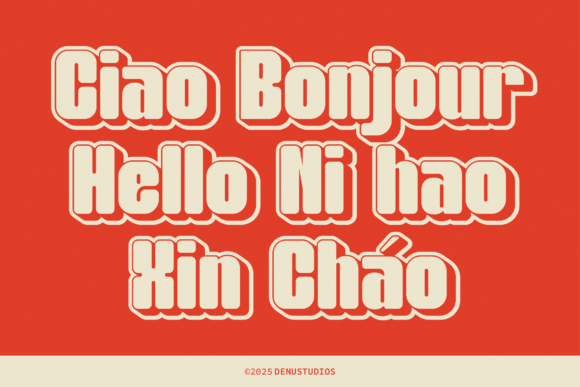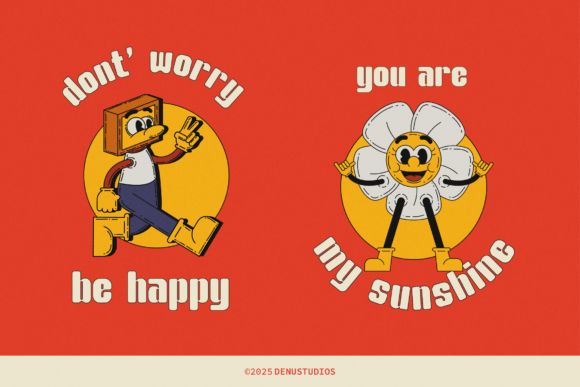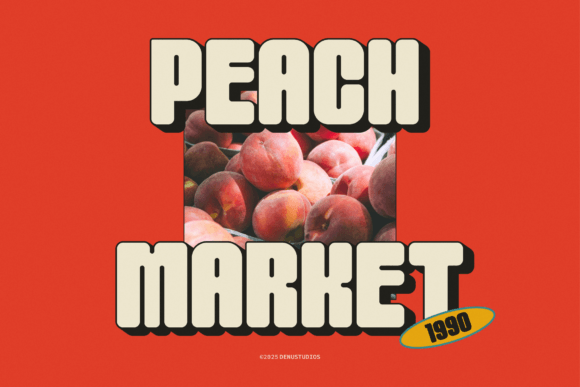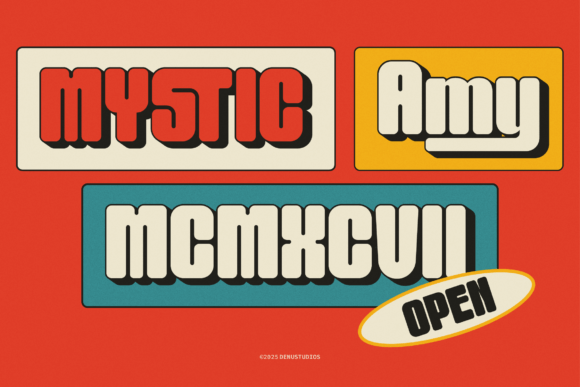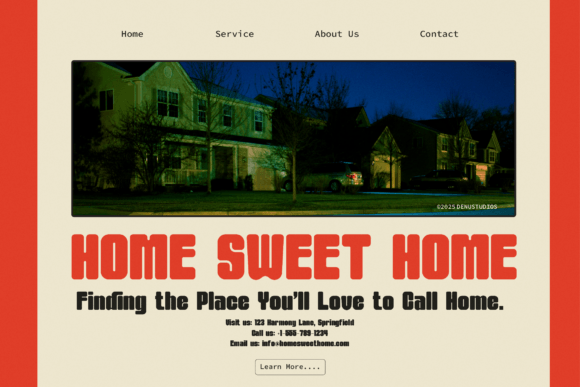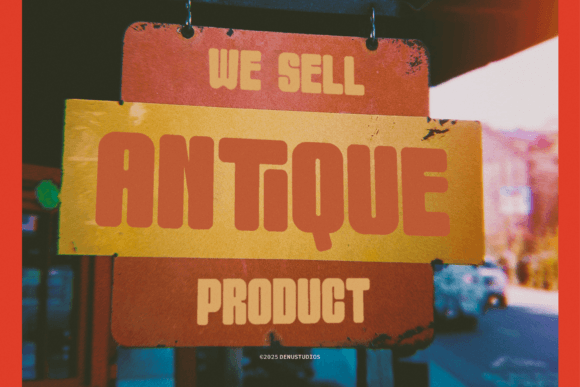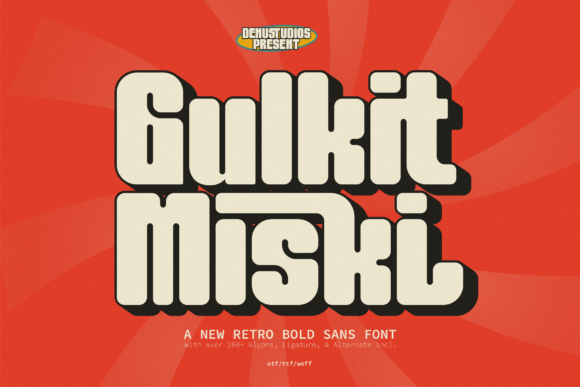
Step Back in Time with Gulkit Miski: The Ultimate Retro Sans Serif Font
Are you looking for a font that can transport your designs back to the groovy era of the 70s and 80s? Look no further than Gulkit Miski, a bold retro sans serif font that’s perfect for adding a touch of vintage charm and playful energy to your projects. With its chunky, rounded letters and extensive character set, Gulkit Miski is the ideal choice for designers and crafters who want to create retro-inspired designs with a modern twist.
A Font that’s Full of Character
Gulkit Miski boasts an impressive character set of over 280 glyphs, including ligatures and alternates. This means you can create a wide range of designs, from bold and playful to elegant and sophisticated. The font’s chunky, rounded letters are perfect for creating eye-catching posters, logos, packaging, and branding that demands a groovy, nostalgic vibe.
Perfect for Retro-Inspired Projects
Whether you’re working on a retro-themed poster, a vintage-inspired logo, or a packaging design that needs a blast from the past, Gulkit Miski is the perfect choice. The font’s bold, chunky letters bring a bold statement to any design, making it ideal for projects that require a playful and energetic vibe.
What Sets Gulkit Miski Apart
So, what sets Gulkit Miski apart from other retro sans serif fonts on the market? Here are just a few reasons why designers and crafters are falling in love with this font:
- Extensive character set: With over 280 glyphs, ligatures, and alternates, Gulkit Miski offers endless possibilities for creative expression.
- Chunky, rounded letters: The font’s bold, chunky letters are perfect for creating eye-catching designs that demand attention.
- Retro vibe: Gulkit Miski’s retro sans serif design is perfect for creating vintage-inspired designs that are sure to transport your audience back in time.
- Modern twist: Despite its retro vibe, Gulkit Miski has a modern edge that’s perfect for designers who want to create designs that are both nostalgic and contemporary.
How to Use Gulkit Miski in Your Designs
Using Gulkit Miski in your designs is easy. Here are a few tips to get you started:
- Pair it with a modern font: Combine Gulkit Miski with a modern font to create a striking contrast that’s sure to make your design stand out.
- Experiment with colors: Gulkit Miski looks great in bold, bright colors. Experiment with different color combinations to find the perfect look for your design.
- Use it for headlines: Gulkit Miski’s chunky, rounded letters are perfect for headlines and titles. Use it to add a bold statement to your design.